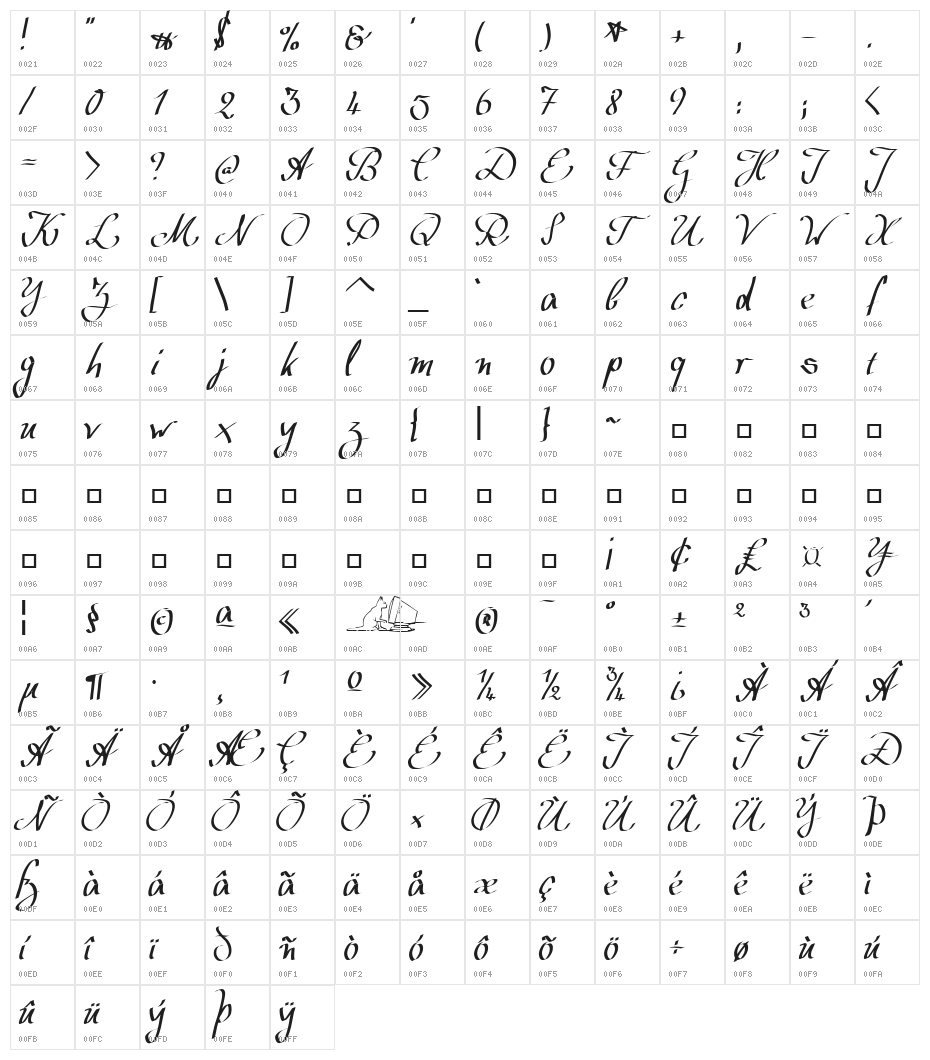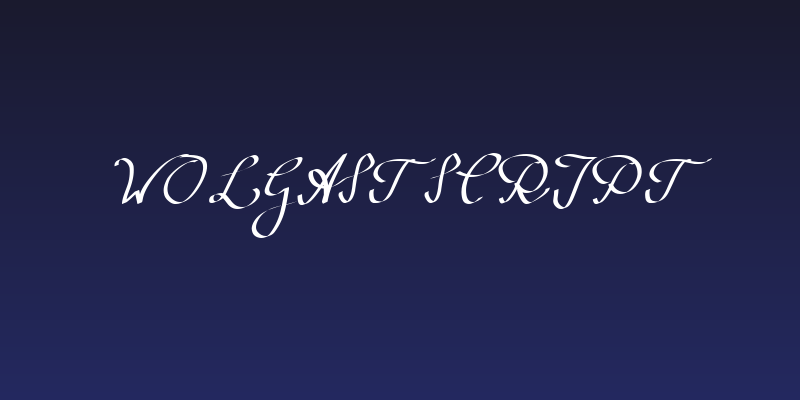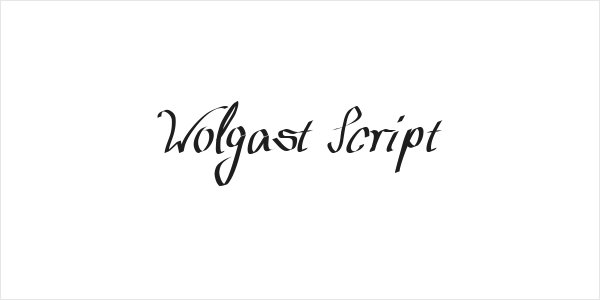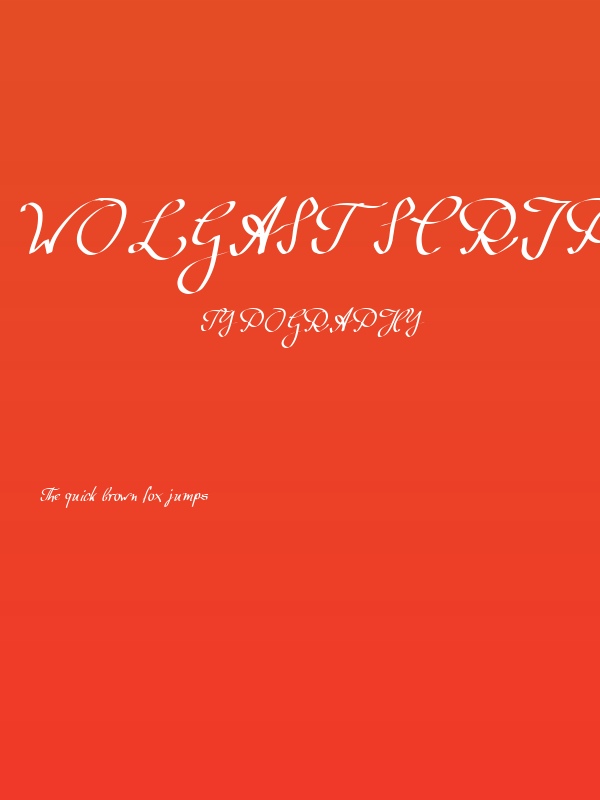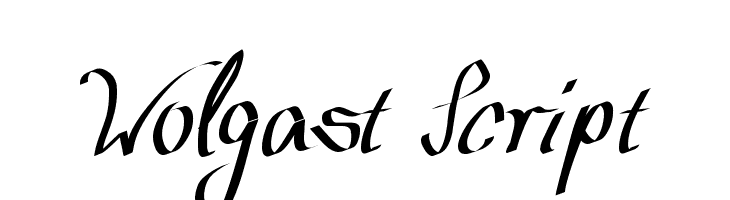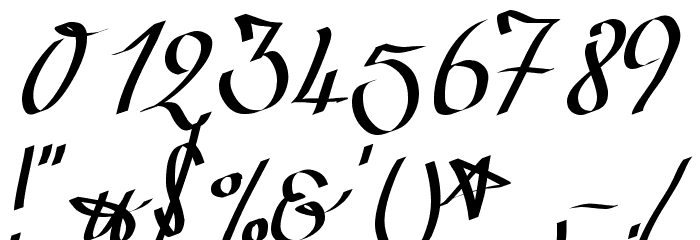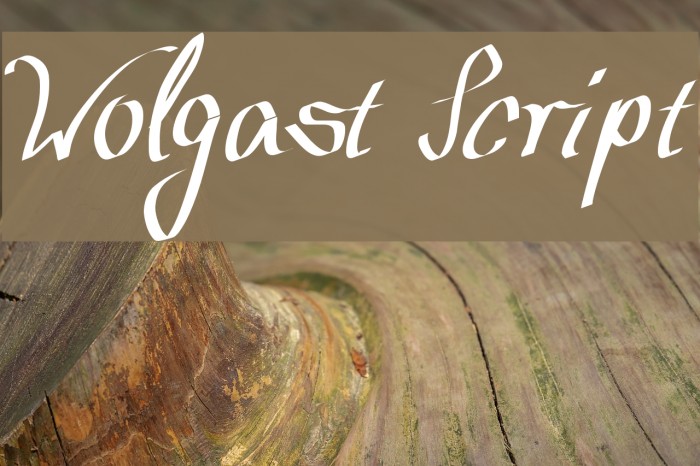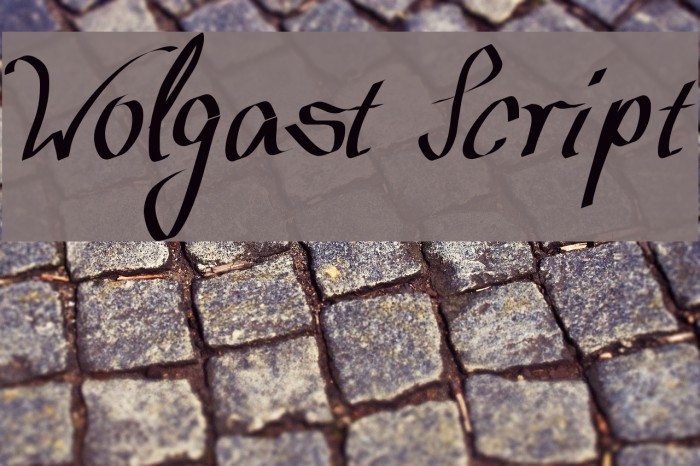
Wolgast Script Font
Wolgast Script Description
This script font features elegant, flowing strokes that mimic the fluidity of handwriting. The uppercase letters are characterized by their sweeping curves and loops, giving them a sense of movement and grace. The lowercase letters maintain a consistent style, with some letters extending below the baseline, adding to the dynamic appearance. The numerals are distinct and maintain the script style, ensuring they blend seamlessly with the alphabet. Special characters are designed to complement the overall aesthetic, making them suitable for decorative purposes. The font's overall appearance is sophisticated and artistic, making it ideal for projects that require a touch of elegance.
| Use Case | Logos, Invitations, Decorative text |
| Proposed Projects | Ideal for wedding invitations, greeting cards, branding, and logo design where a touch of elegance is desired. |